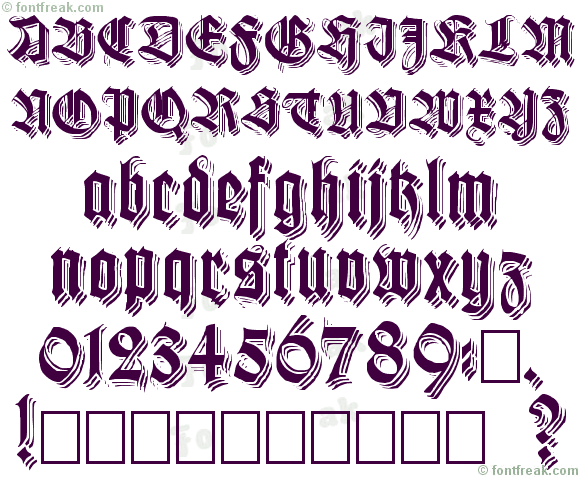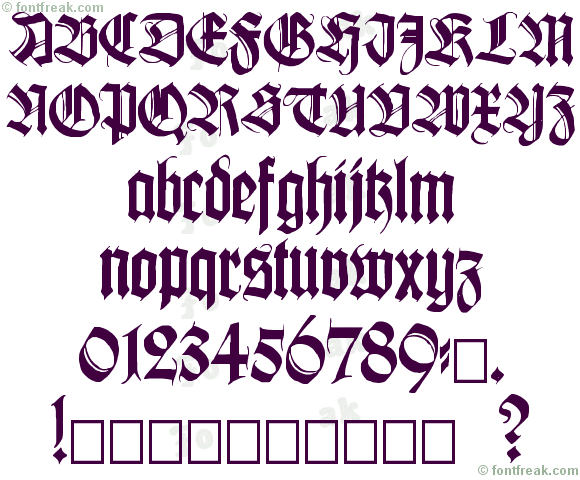
KilligrewStacatto
Killigrew
About Killigrew
Killigrew, designed by Paul Lloyd, is a striking display font that embodies a gothic-inspired style. This serif typeface features an intricate design with sharp, angular strokes and a bold presence, making it perfect for projects that require a touch of elegance and drama. The font showcases a high contrast between thick and thin strokes, which enhances its visual appeal and adds a sense of depth. The spacing is generous, allowing each character to breathe while maintaining a cohesive look. Decorative elements, such as ornate flourishes and pointed serifs, contribute to its unique personality.
This font is particularly well-suited for a variety of creative applications. It shines in wedding invitations, where its romantic flair can elevate the overall aesthetic. Movie posters also benefit from its dramatic style, capturing attention and setting the tone for the film. Additionally, restaurant menus can use Killigrew to convey an upscale dining experience, while branding materials for artisanal products can leverage its distinctive character to stand out in a crowded market.
What sets the Killigrew font apart is its ability to blend tradition with modernity. Its elegant yet bold design ensures that it commands attention while remaining legible, making it a fantastic choice for headlines and key messages. For those seeking a unique typographic solution, the Killigrew font free download opens the door to endless creative possibilities, ensuring that your projects leave a lasting impact.